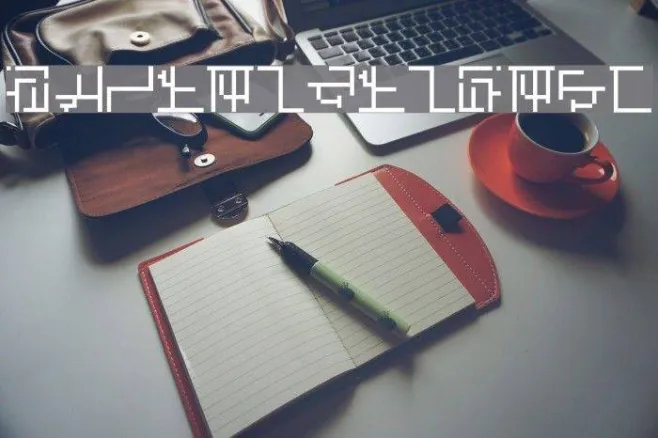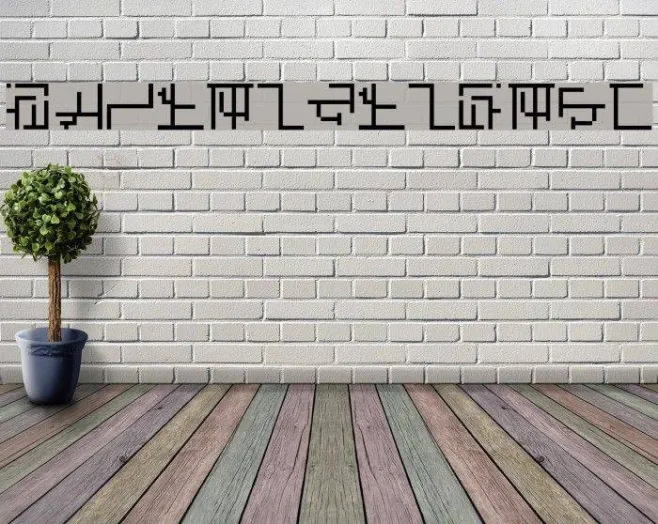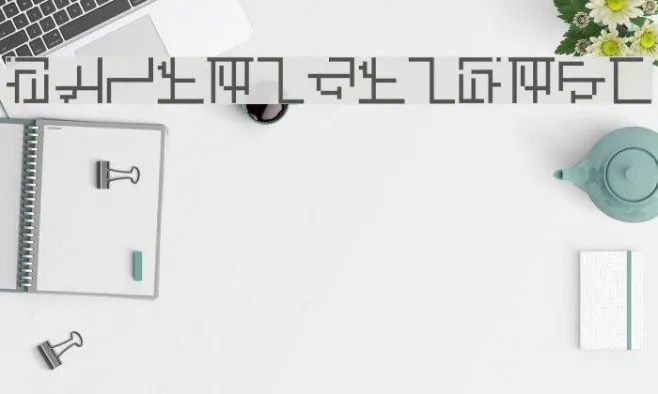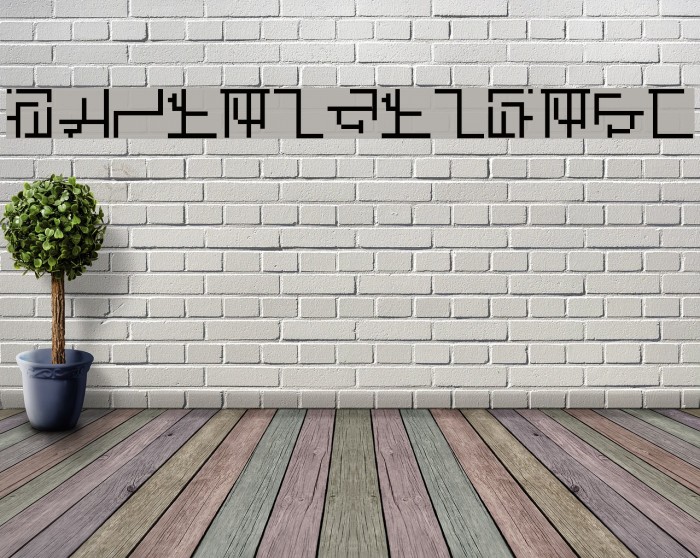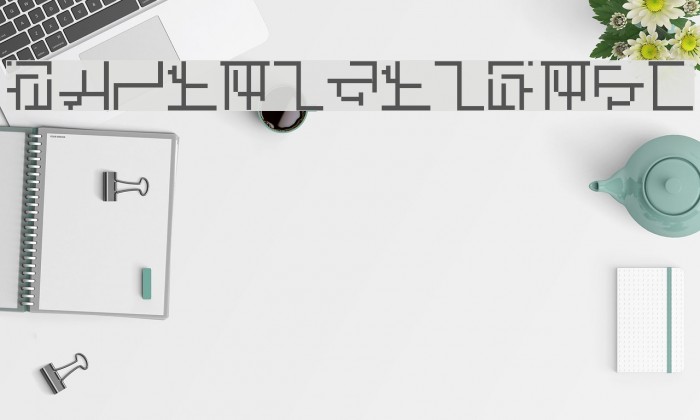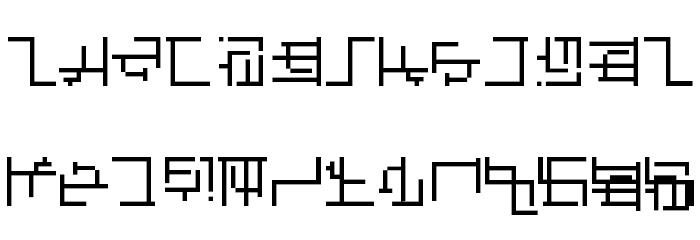
AbstractaGrid Font
AbstractaGrid Description
This font features a highly abstract and geometric design, characterized by its grid-like structure and pixelated appearance. Each character is composed of straight lines and right angles, creating a futuristic and digital aesthetic. The uniformity in line thickness and the absence of curves give it a mechanical feel, reminiscent of early computer graphics or retro video game text. The characters are distinct yet maintain a cohesive style, making it suitable for projects that require a modern and unconventional look.
A geometric, pixelated font with a futuristic and digital aesthetic from Uncategorized fonts.
- Proposed Projects: Ideal for digital art, video game design, tech-themed posters, and modern branding projects.
- Use Case: Logos, Headlines, Digital Art